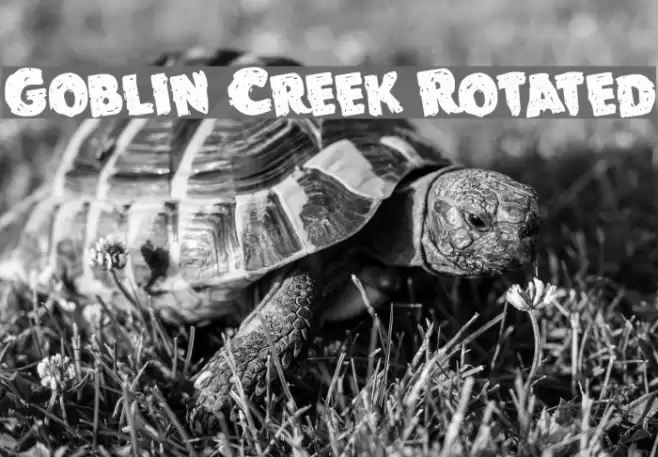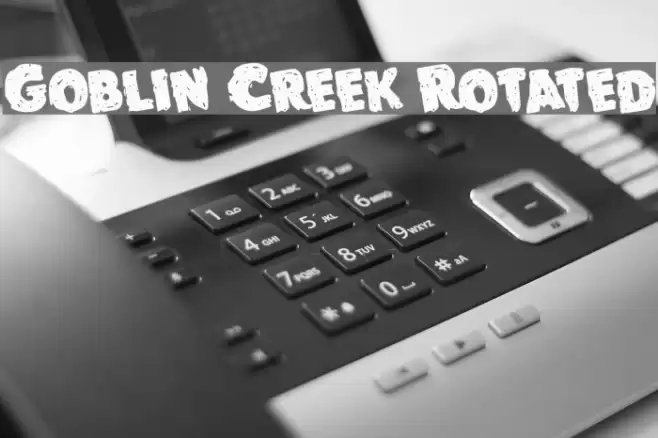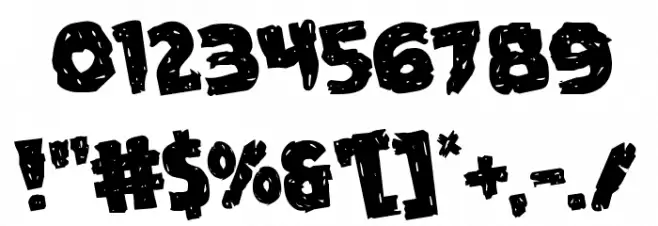
Goblin Creek Rotated Font
Goblin Creek Rotated Description
This font features a bold and playful design with a rough, textured appearance that gives it a unique, hand-crafted feel. The characters are heavily stylized, with irregular edges and a slightly chaotic look, reminiscent of graffiti or street art. The uppercase and lowercase letters maintain a consistent style, while the numbers and special characters complement the overall aesthetic. This font is ideal for projects that require a fun, edgy, and eye-catching typeface.
A bold, textured font with a playful, graffiti-like style from Horror fonts.
- Proposed Projects: Perfect for posters, album covers, video game graphics, and any creative project needing a bold statement.